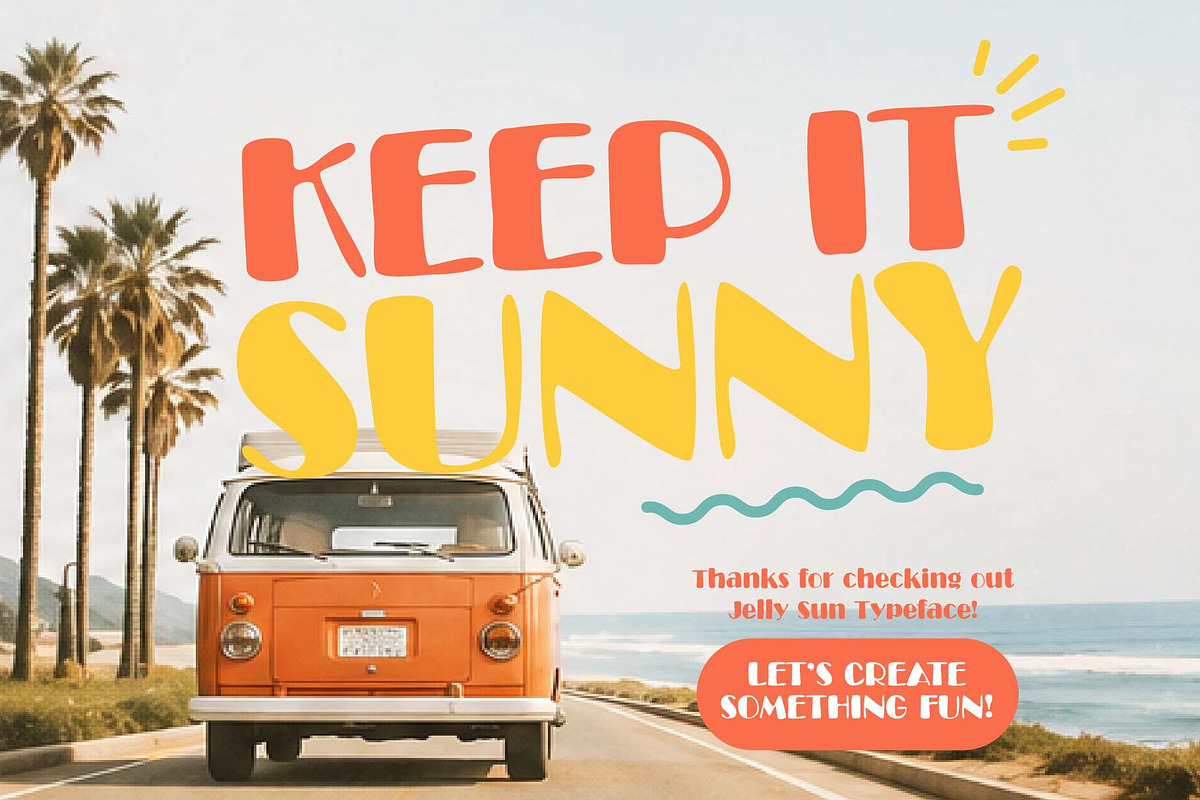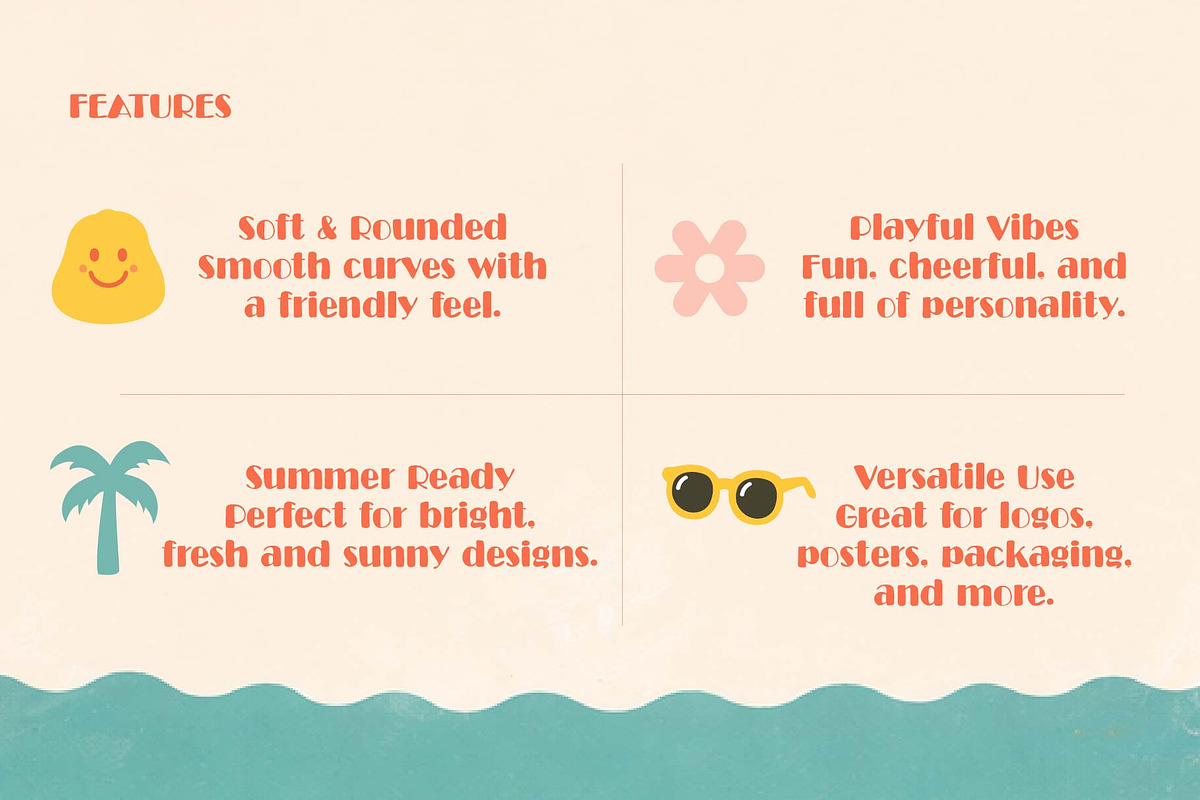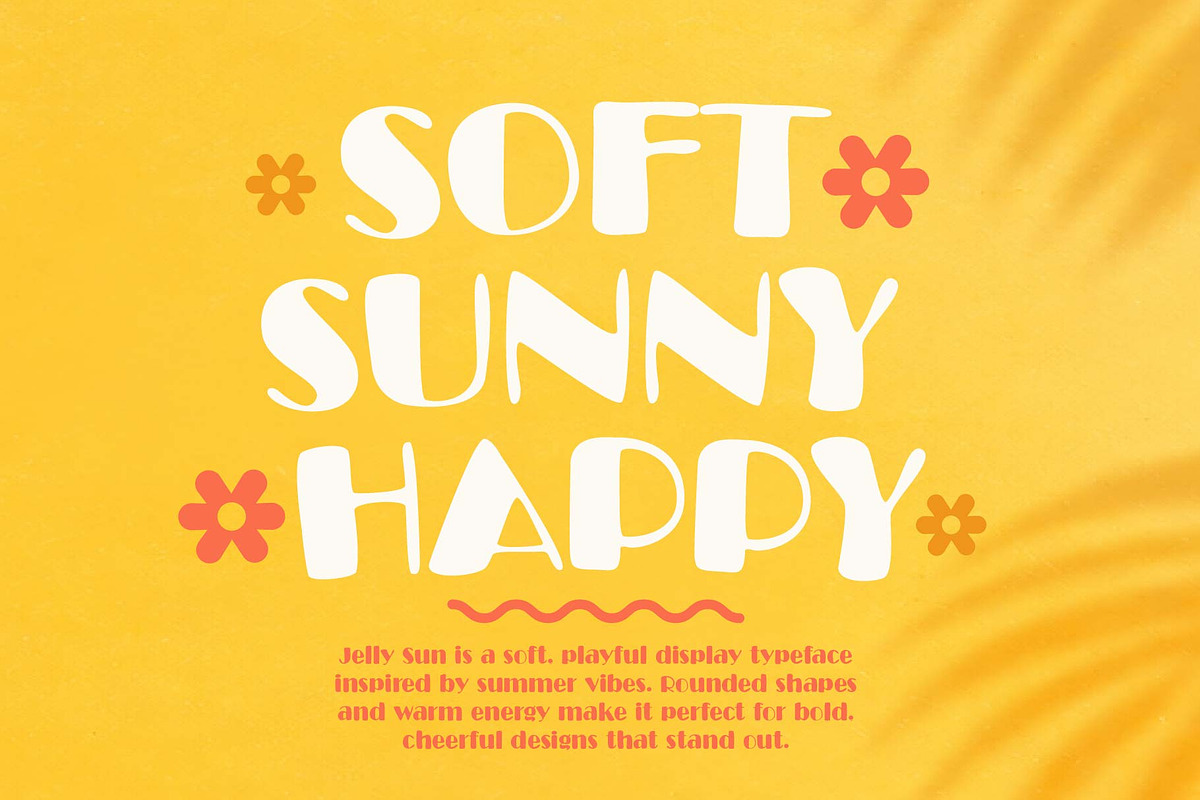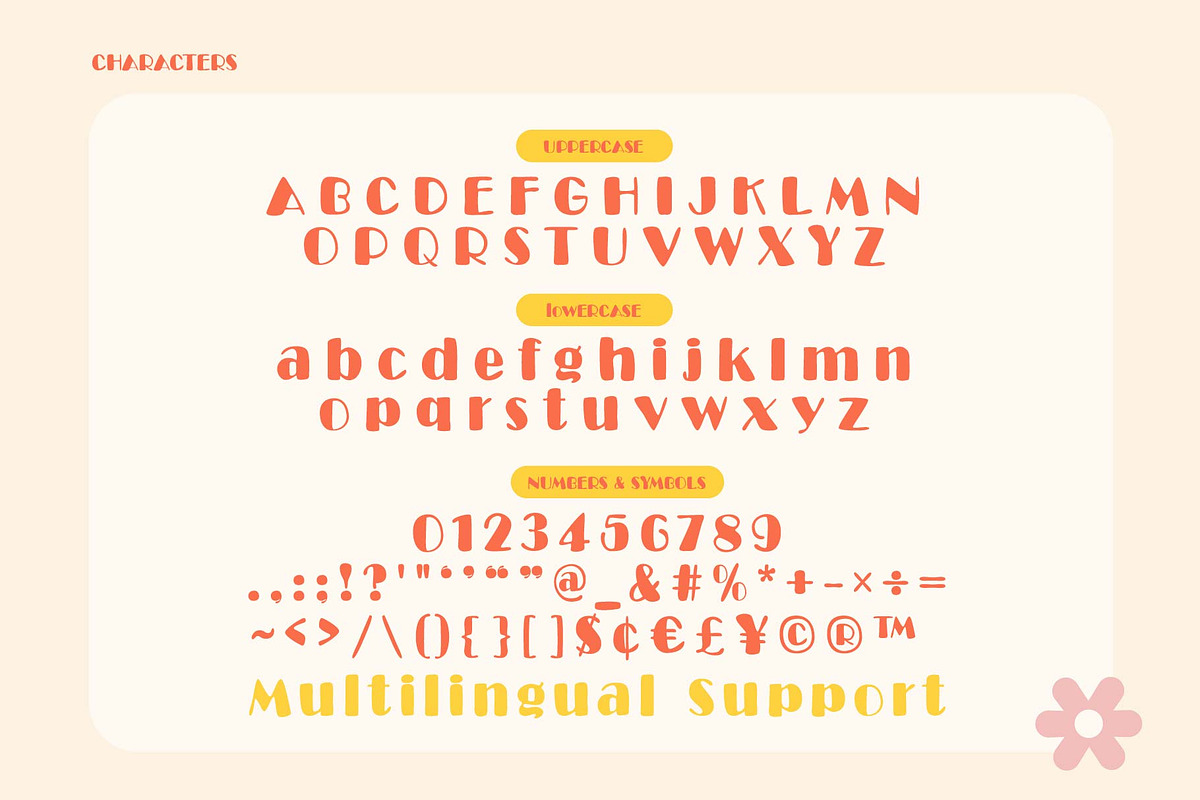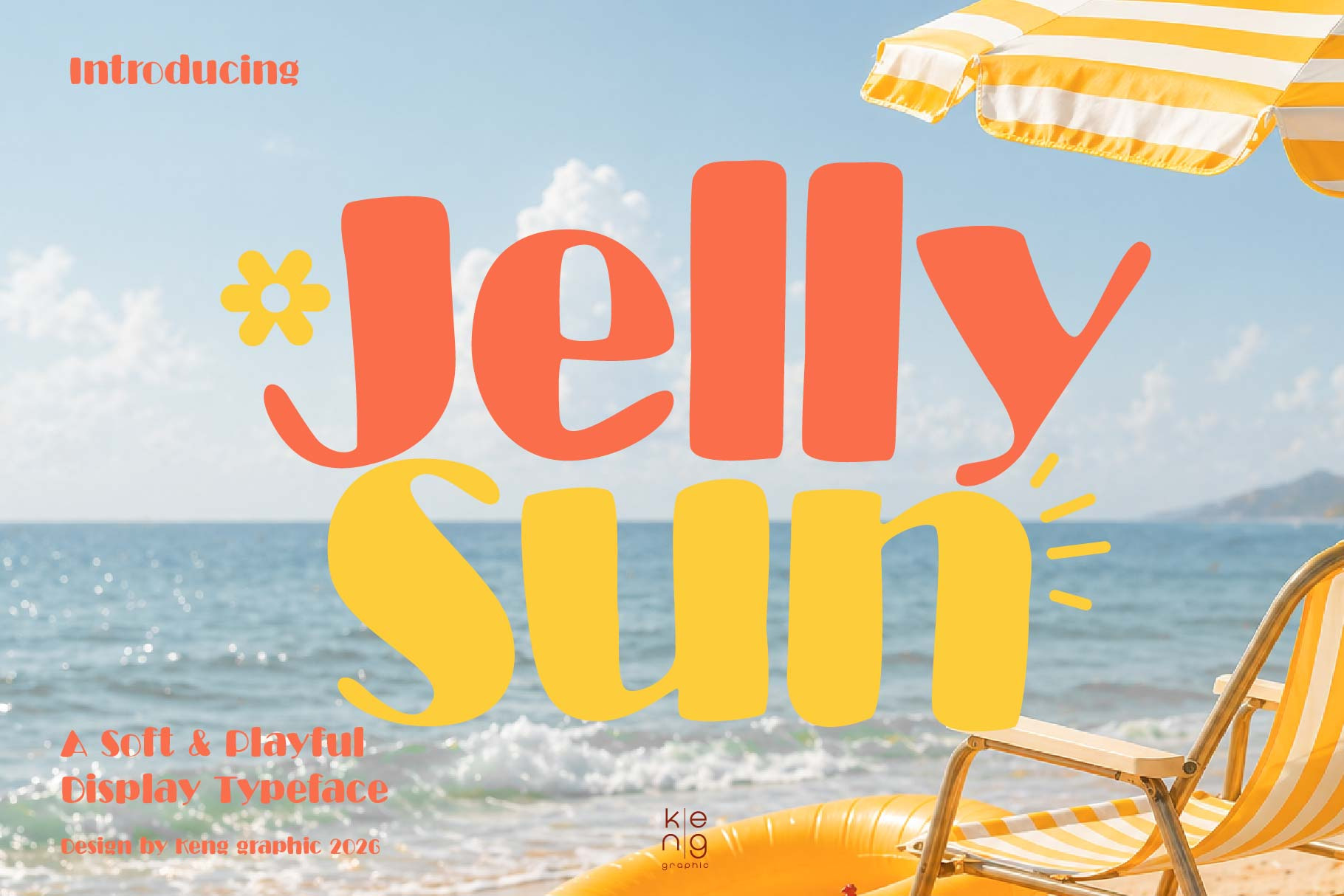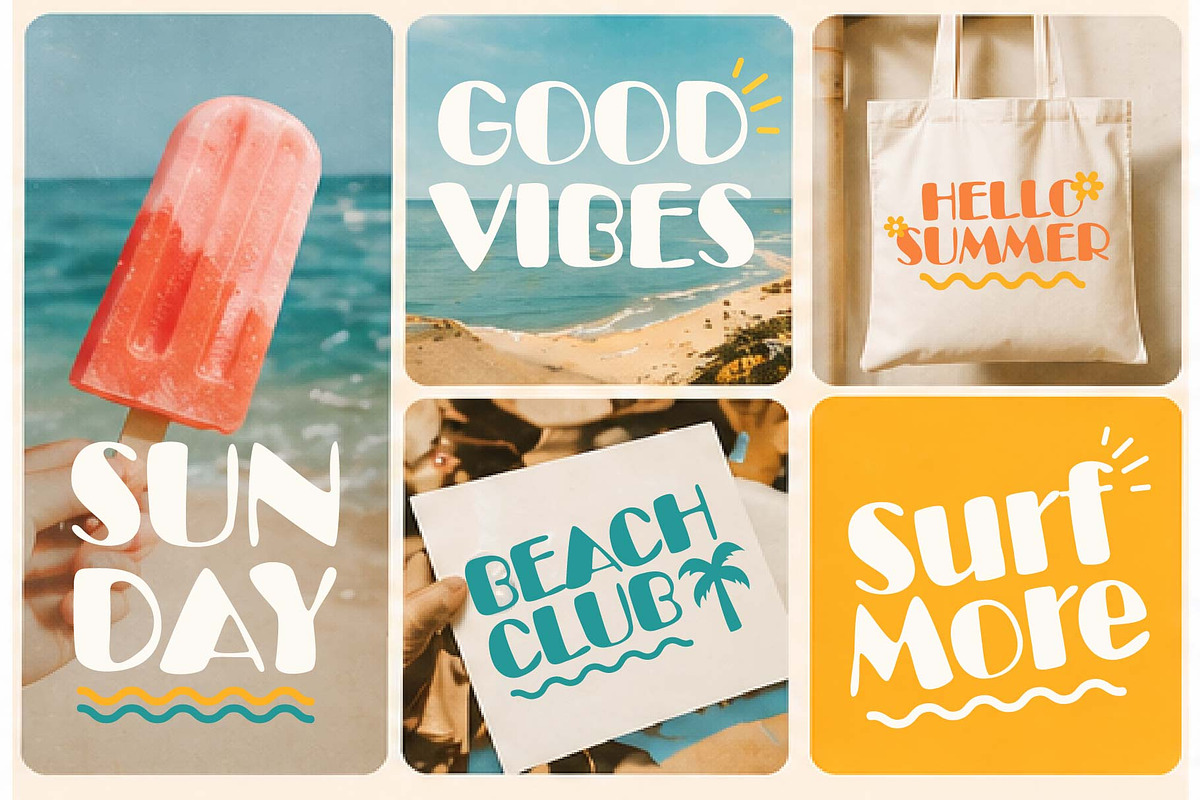
Jelly Sun Font
Immerse in the vibrant joy of sunshine-infused summer escapades, with Jelly Sun – a lively, spirited display font. This font channels the enchanting magic of the season, boasting delightfully rounded characters that echo summer’s jubilant charm and bubbly charisma. With its cheerful and warm demeanor, Jelly Sun distinguishes itself as an ideal choice for designs that glow with unmissable exuberance and audacious boldness. Revel in its playful nature and let your designs radiate with the buoyant charm of Jelly Sun.